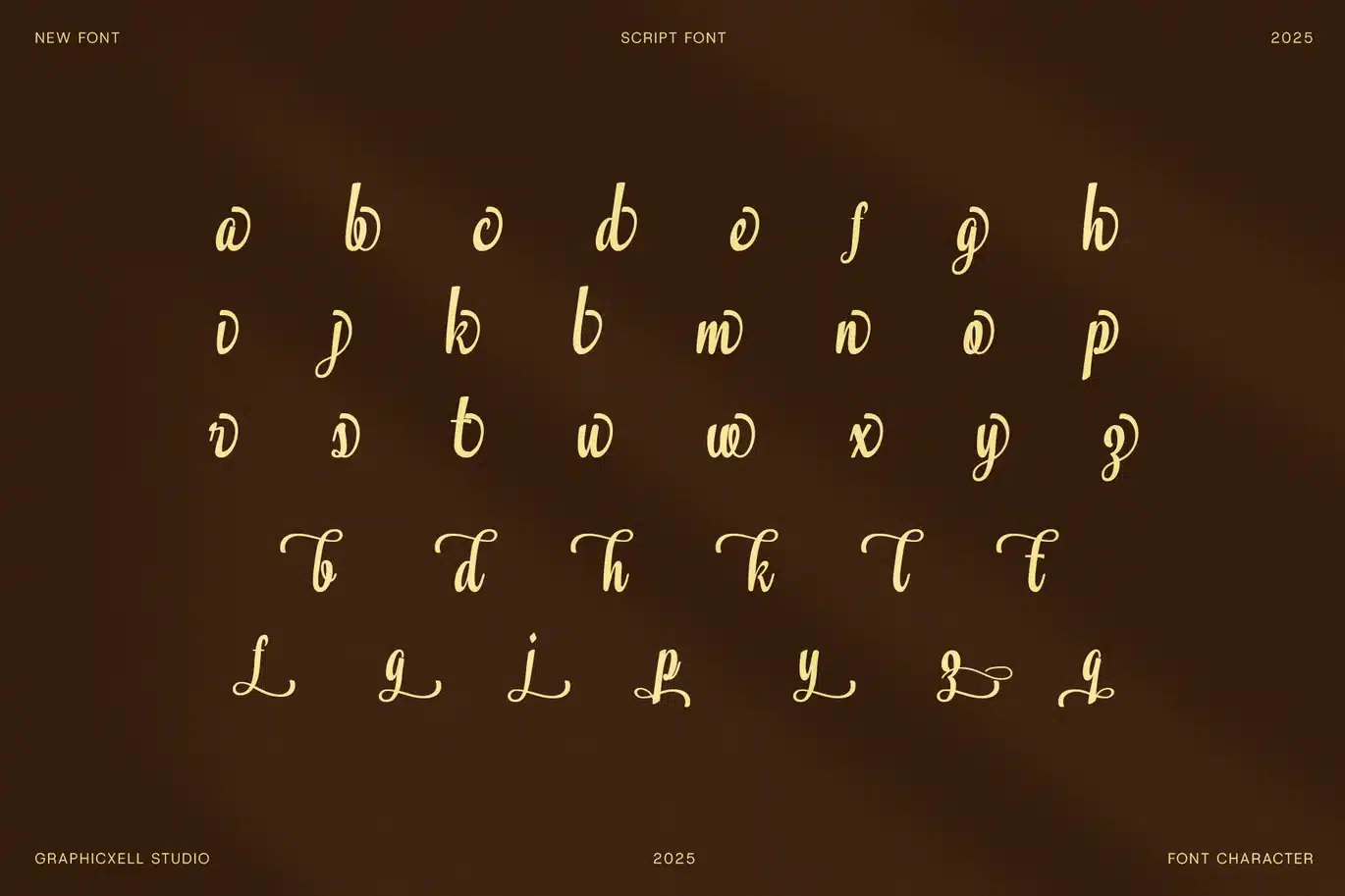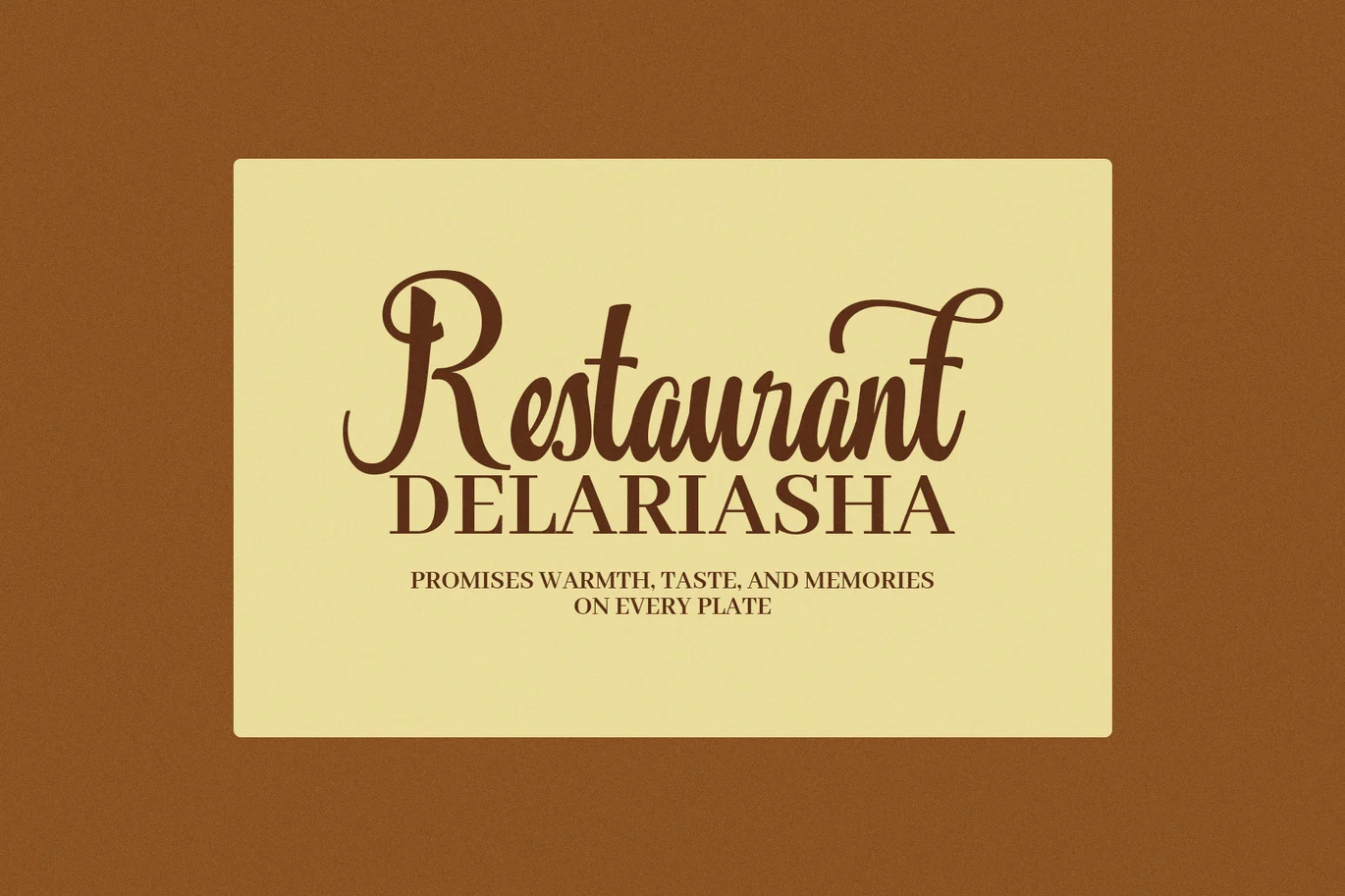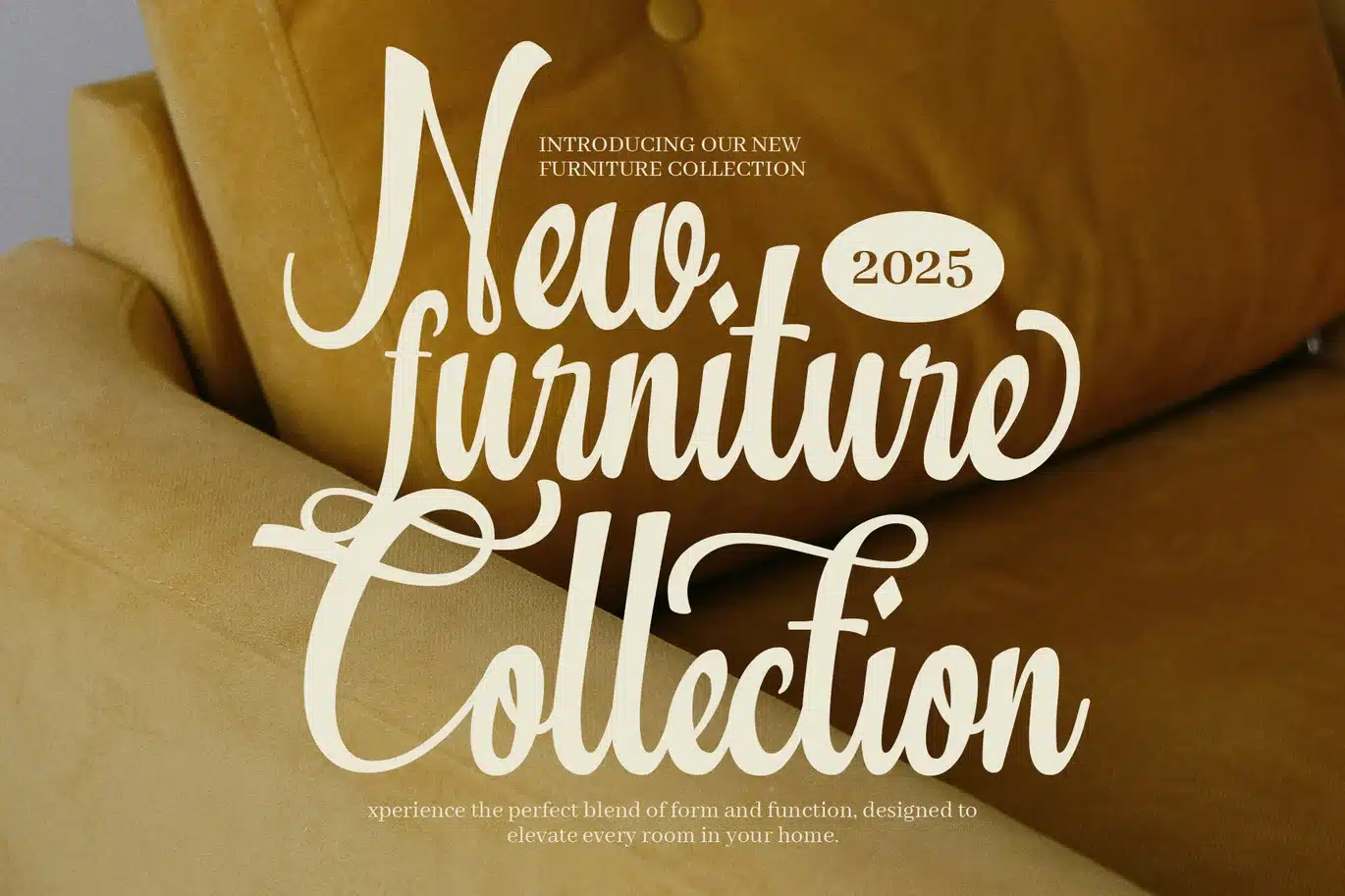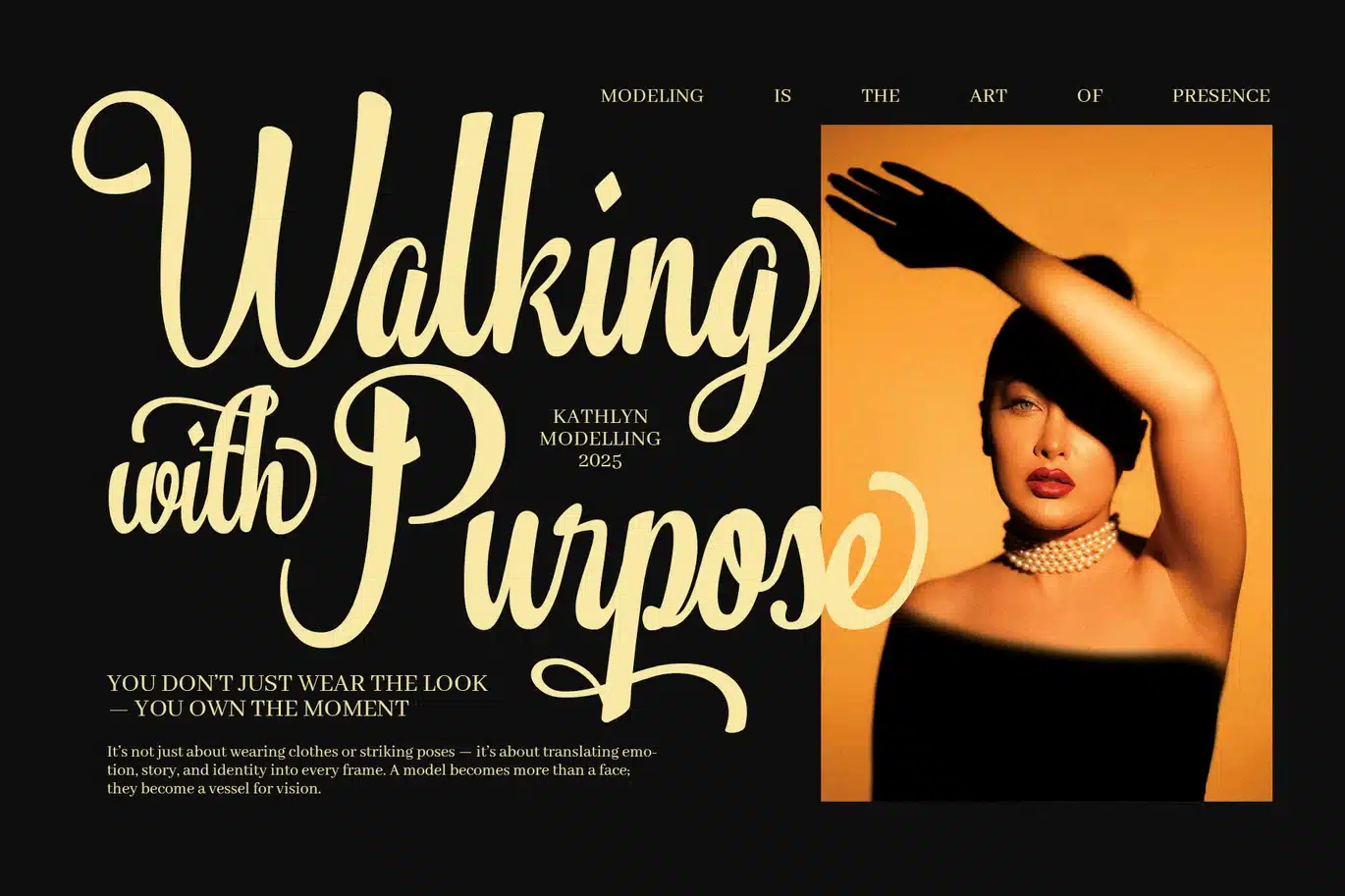
Aerilyn – Feminine Script Font
Aerilyn is a modern feminine script font that combines elegance, movement, and emotion. Every stroke flows with grace, giving your words a soft yet confident personality. Because of its refined curves and smooth connections, it delivers an elegant touch suitable for any creative project.
The font blends modern calligraphy with classic script design, resulting in a style that feels timeless and expressive. Moreover, Aerilyn brings a sense of authenticity and natural rhythm, making every word appear beautifully hand-crafted. As a result, it works perfectly for brands that want to convey warmth, beauty, and confidence.
You’ll notice how the letters dance gracefully across the page. Each detail is carefully designed to create harmony, clarity, and visual appeal. Whether you design wedding invitations, branding materials, or fashion editorials, this font transforms simple text into sophisticated artwork.
Aerilyn is ideal for:
Wedding invitations and stationery
Beauty and fashion branding
Boutique packaging and logos
Elegant advertising and editorial design
Social media and photography watermarks
Because of its balance between softness and sophistication, Aerilyn is not just a typeface—it’s a statement. It conveys emotion and elegance while remaining highly versatile. With every curve, it reflects artistry, romance, and strength, creating an unforgettable visual presence.
Choose Aerilyn when you want your design to feel luxurious, modern, and naturally beautiful. Let it tell your story through elegant lines and refined details that inspire connection and confidence.